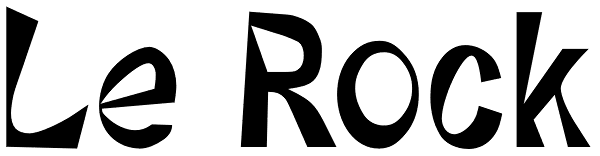
Le Rock
Le rock is the newborn sister of my first typeface Jazmo and a relative of my music-inspired font family. Le Rock seems to wiggle and jiggle a little as if it invites you to dance. This is caused by the gaps in the individual characters. The...